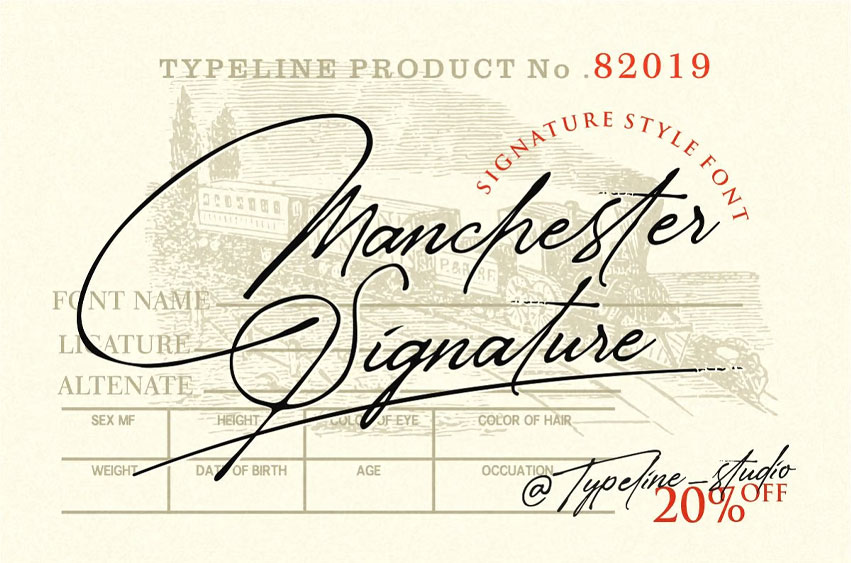
Introducing the Manchester Signature Font—a classy typeface that is perfect for creating signature logos and watermarks for photography studios or personal photography branding. This font is ideal for initial designs or branding logo signatures.
I crafted it with a sense of elegance, professionalism, and uniqueness. You can easily try it out by typing the name you want below. The design is simple yet exudes a luxurious feel.
This font features a lowercase alternative that closely resembles handwriting, making it suitable for signatures, logos, photo watermarks, and more. You can create a custom personal signature or logo with ease. This amazing signature font is designed for you!